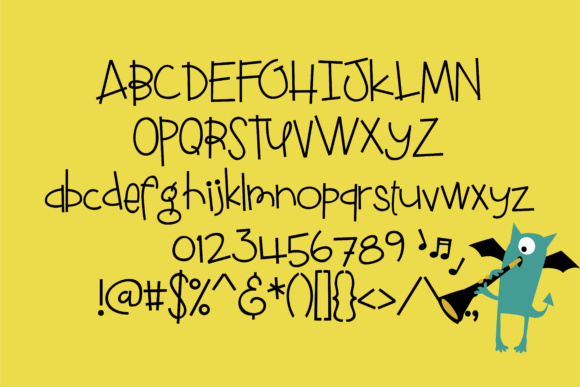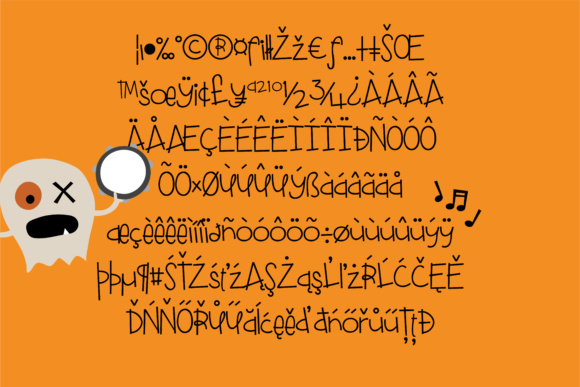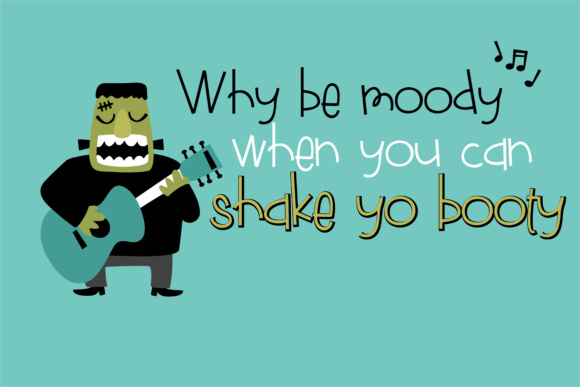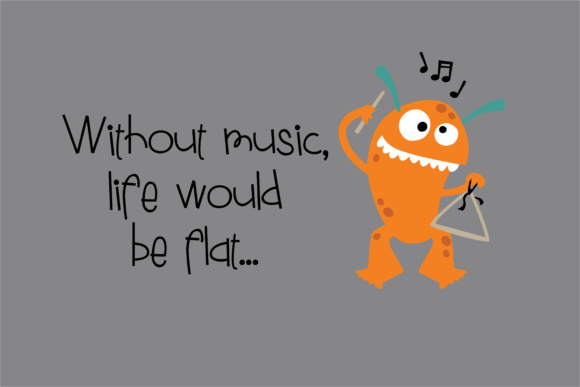
Boogieman Font
About Boogieman Font
Boogieman is a youthful handwritten font, perfect for headlines in your most jovial projects! This font has a bit of toggle to it which gives it a dancing look, so your designs will have tons of vibrancy!